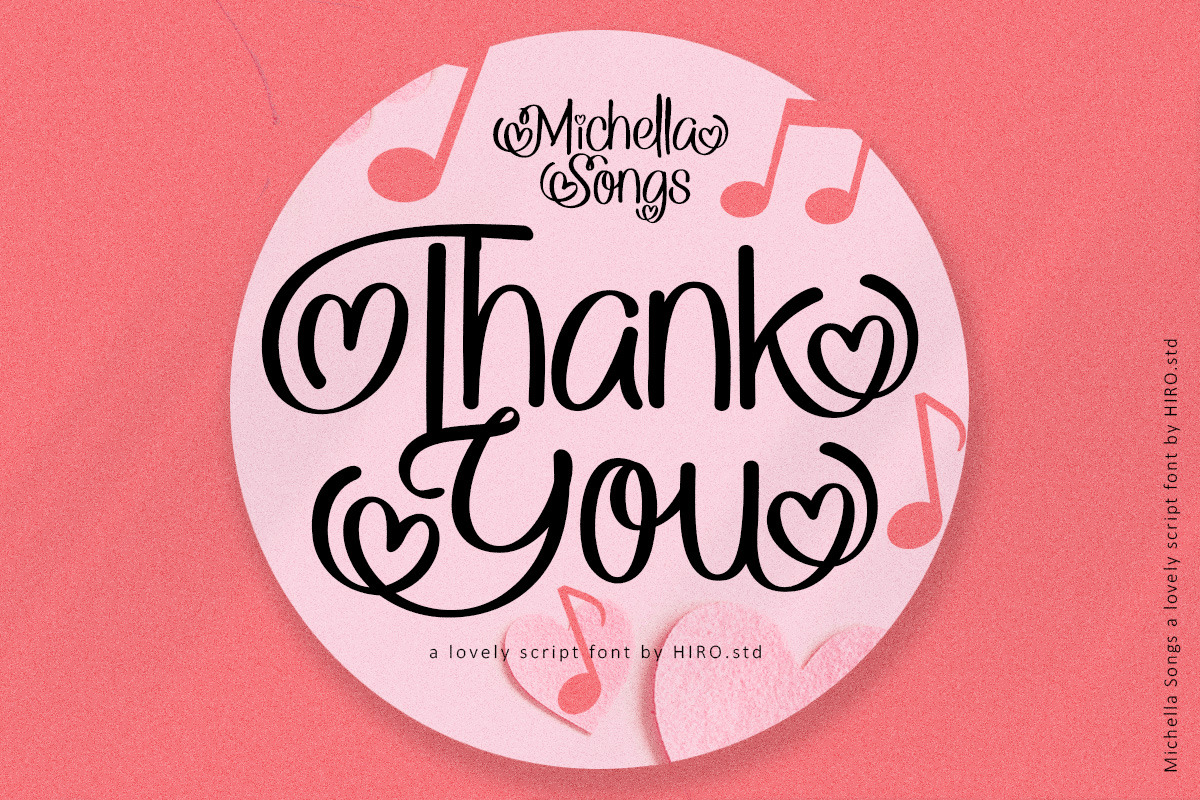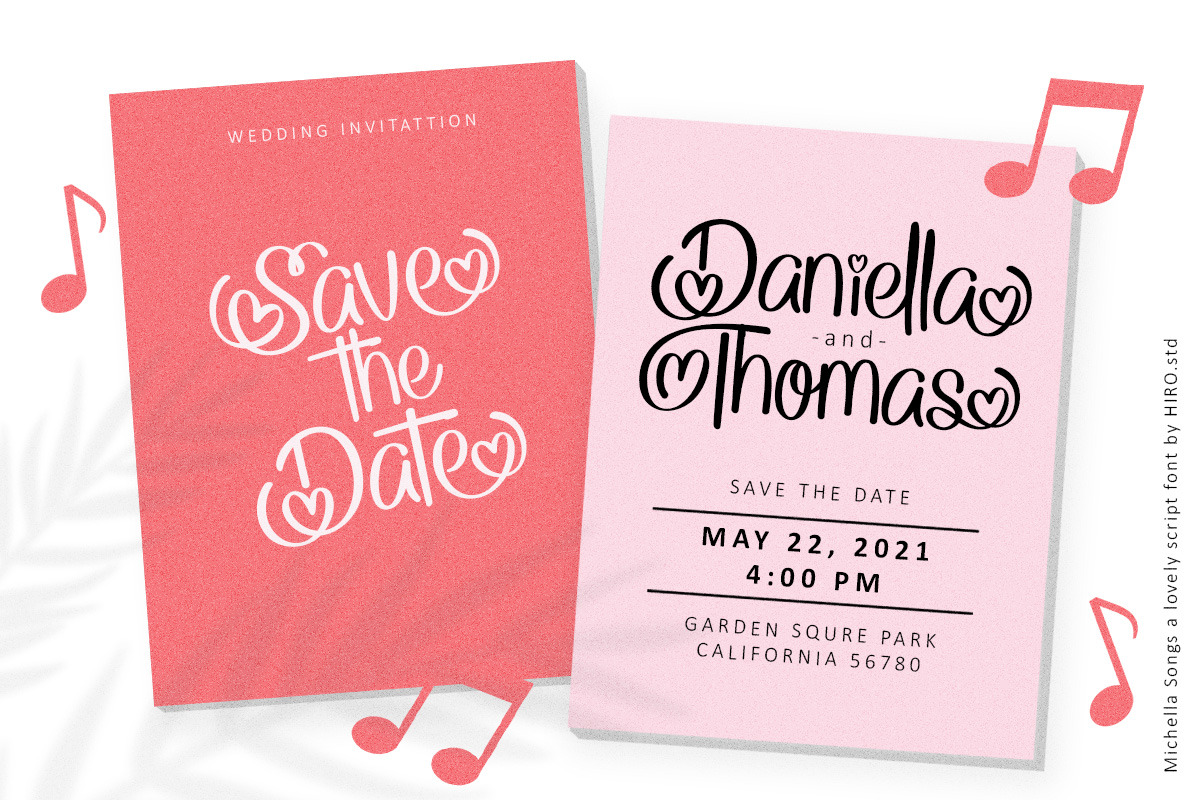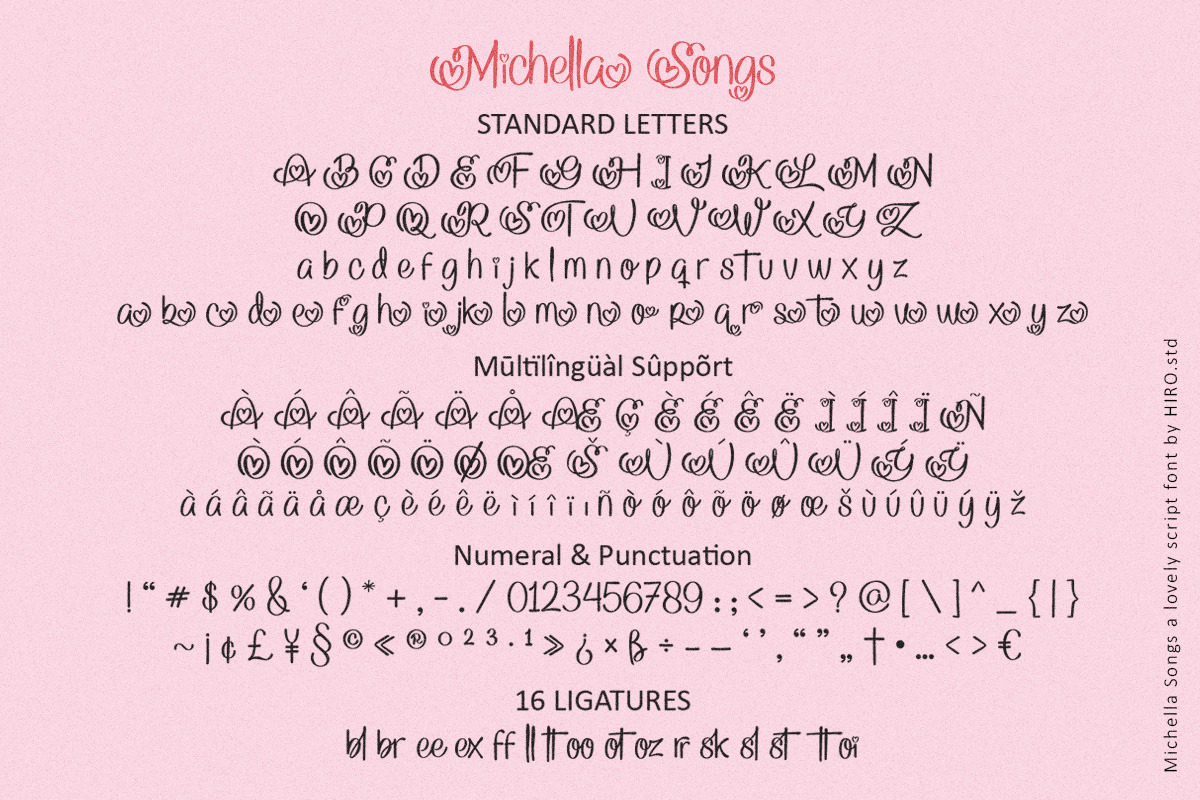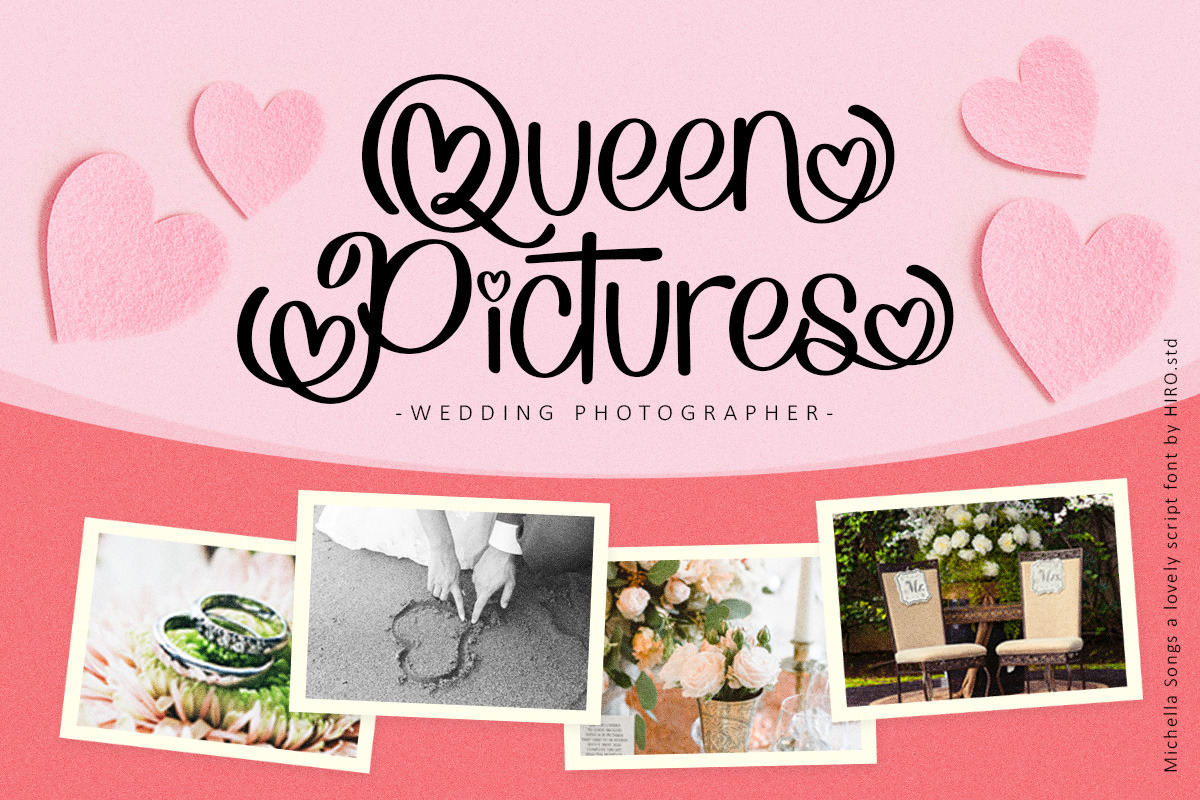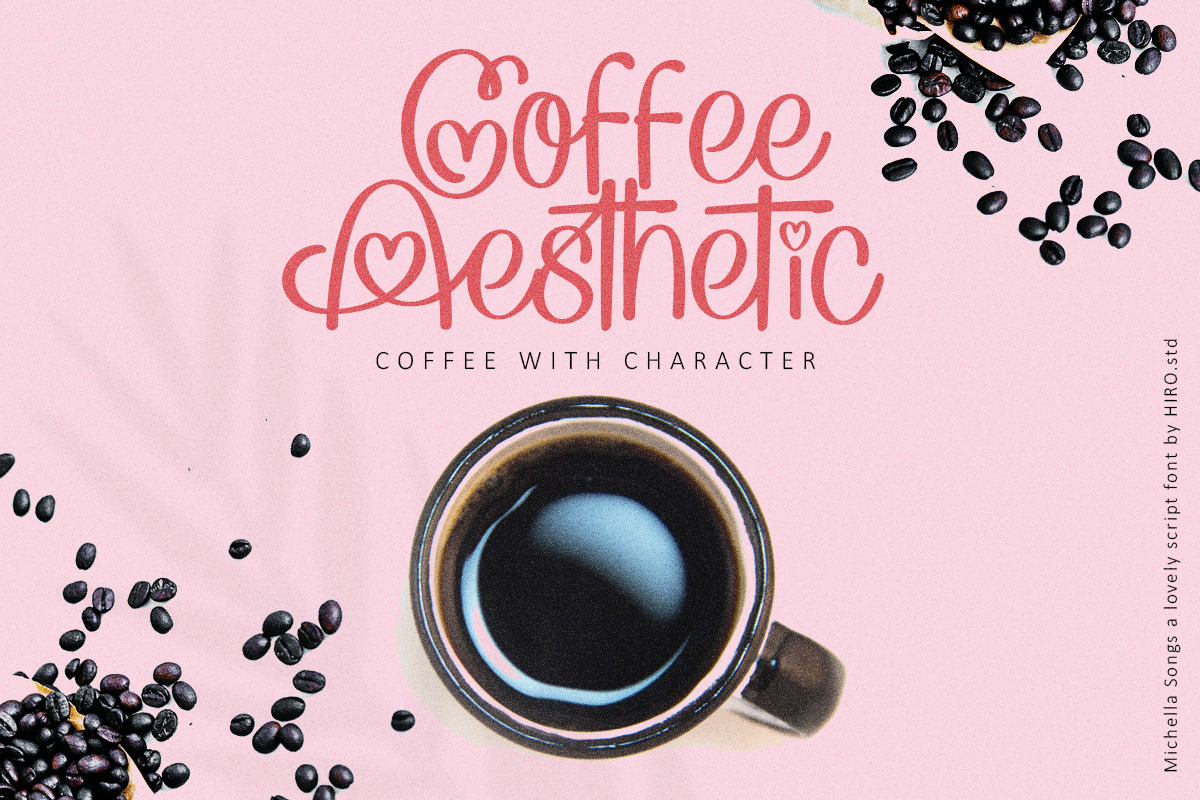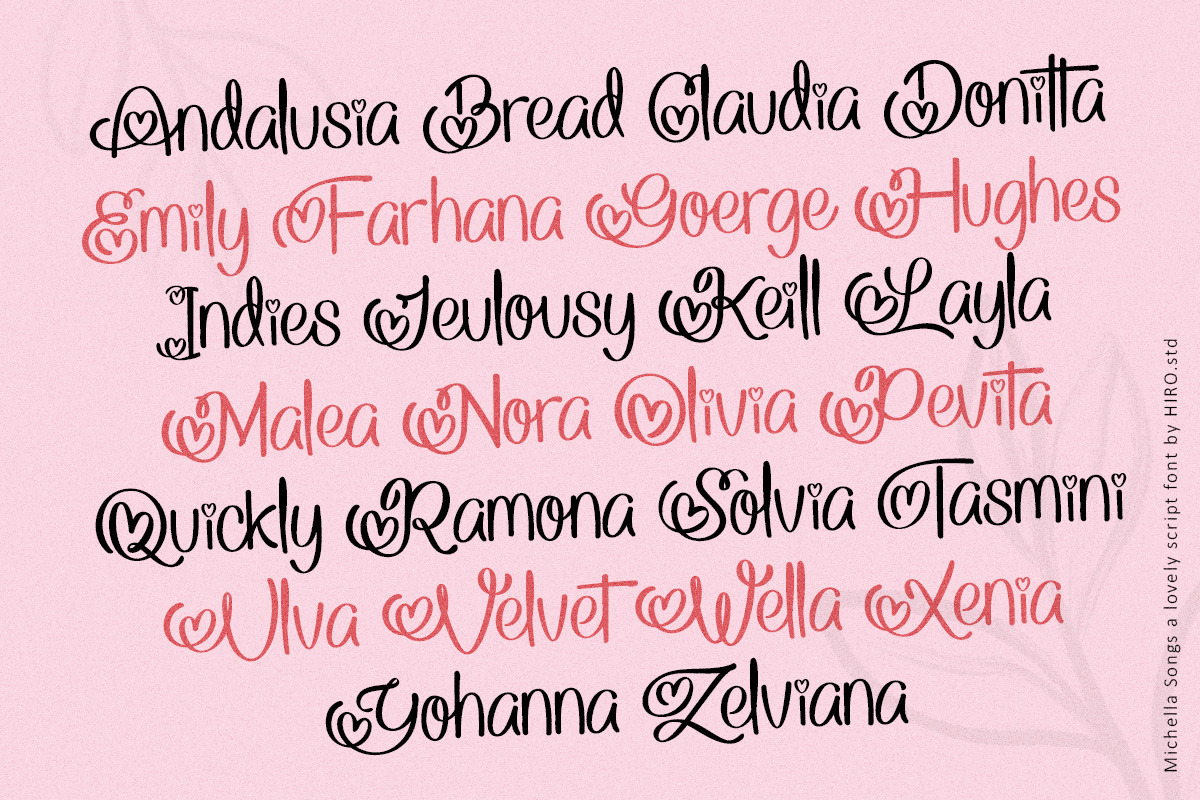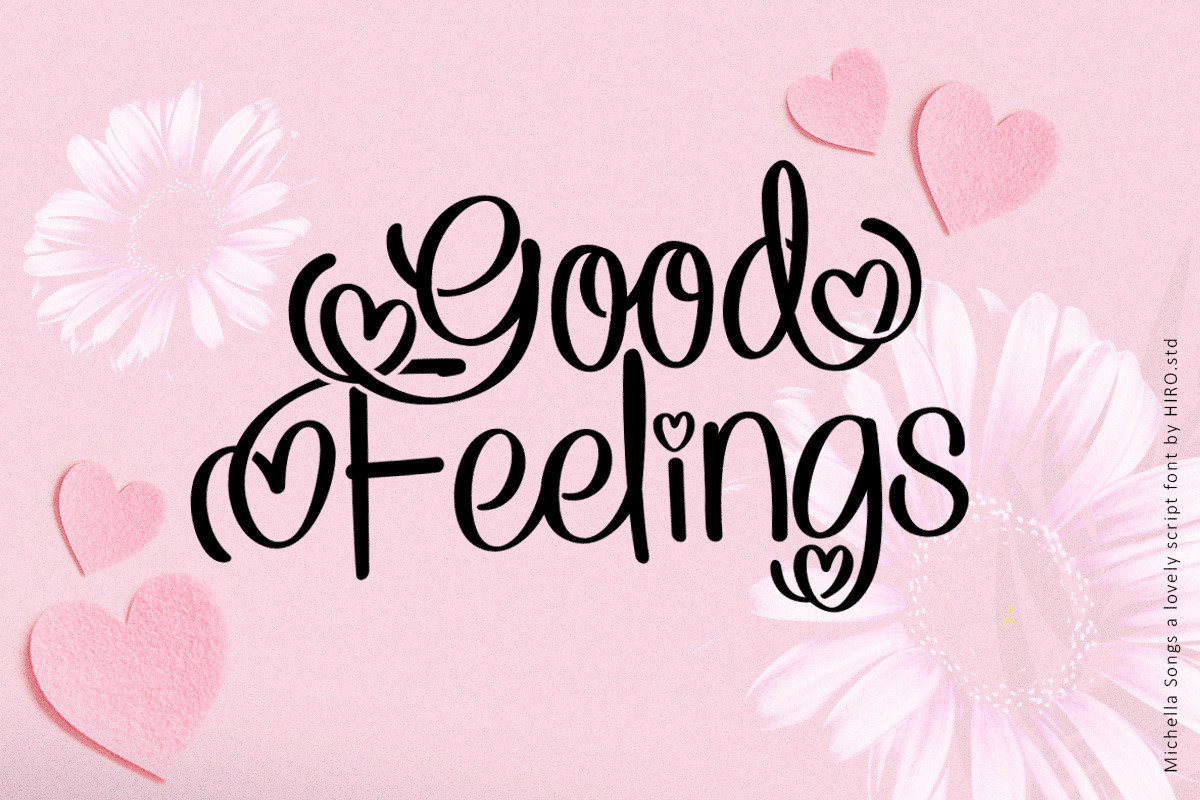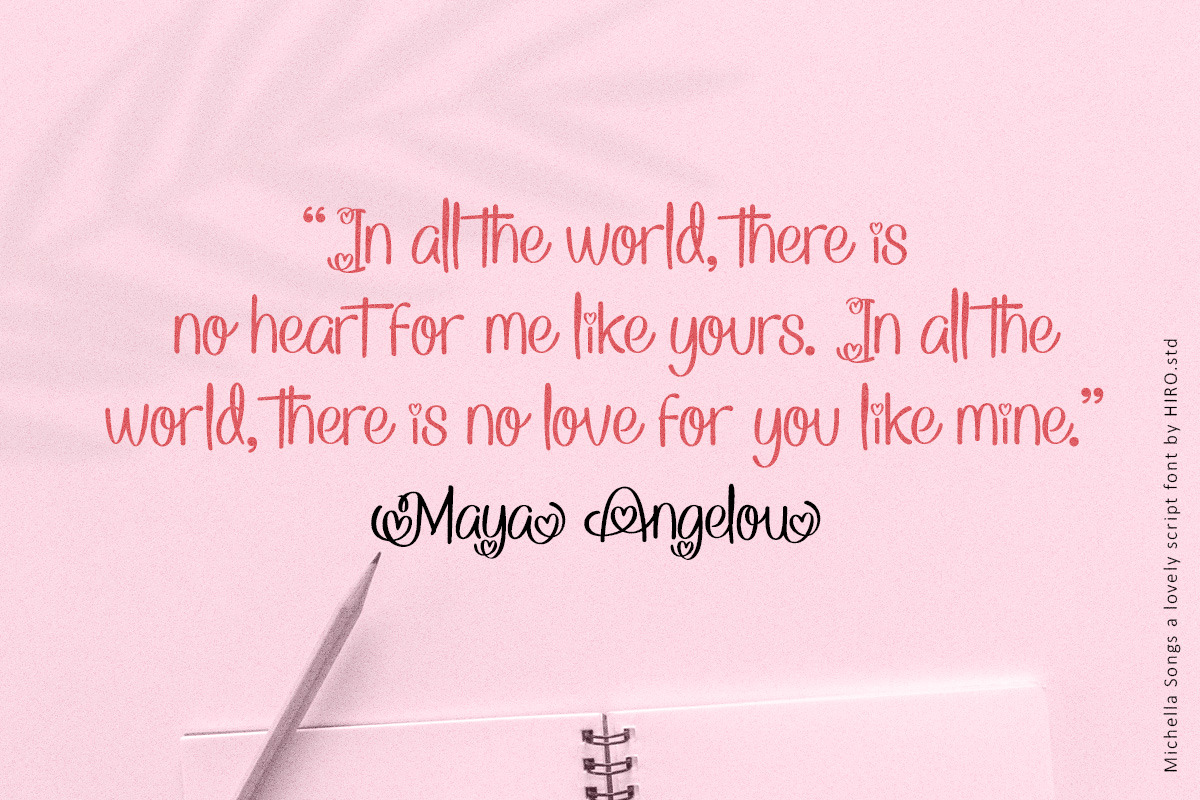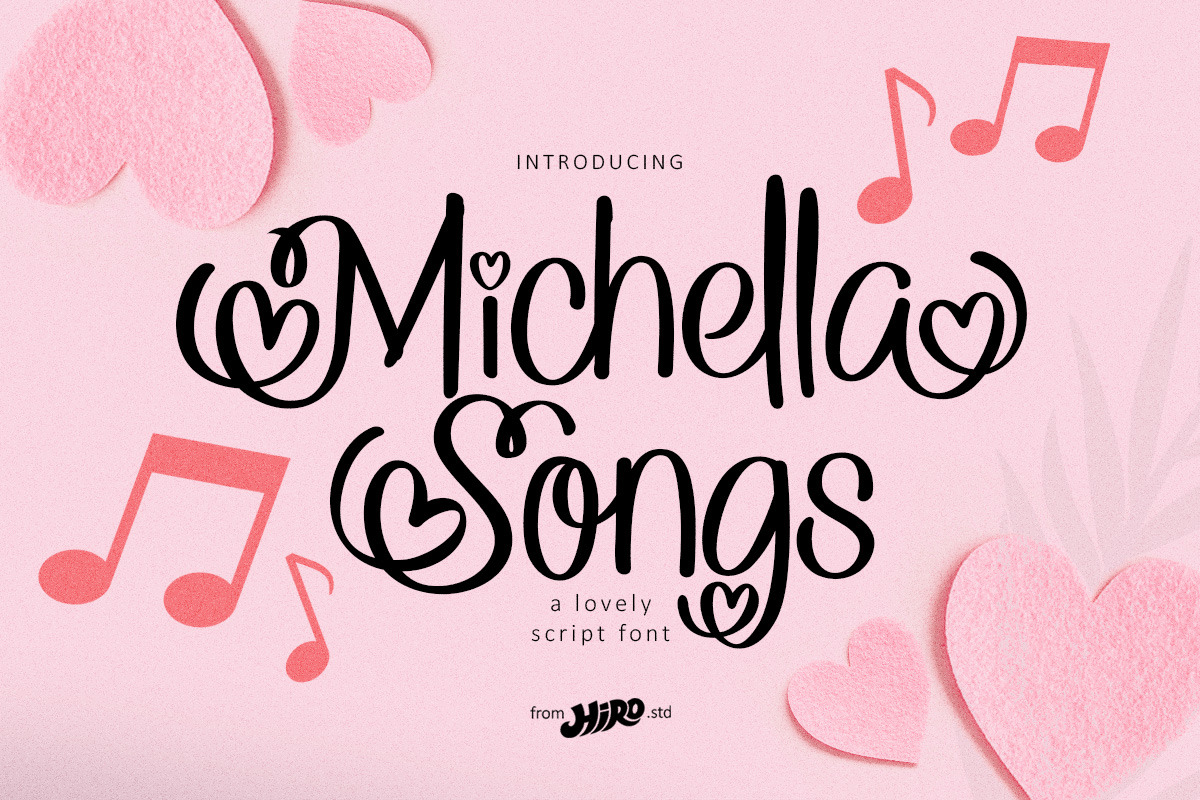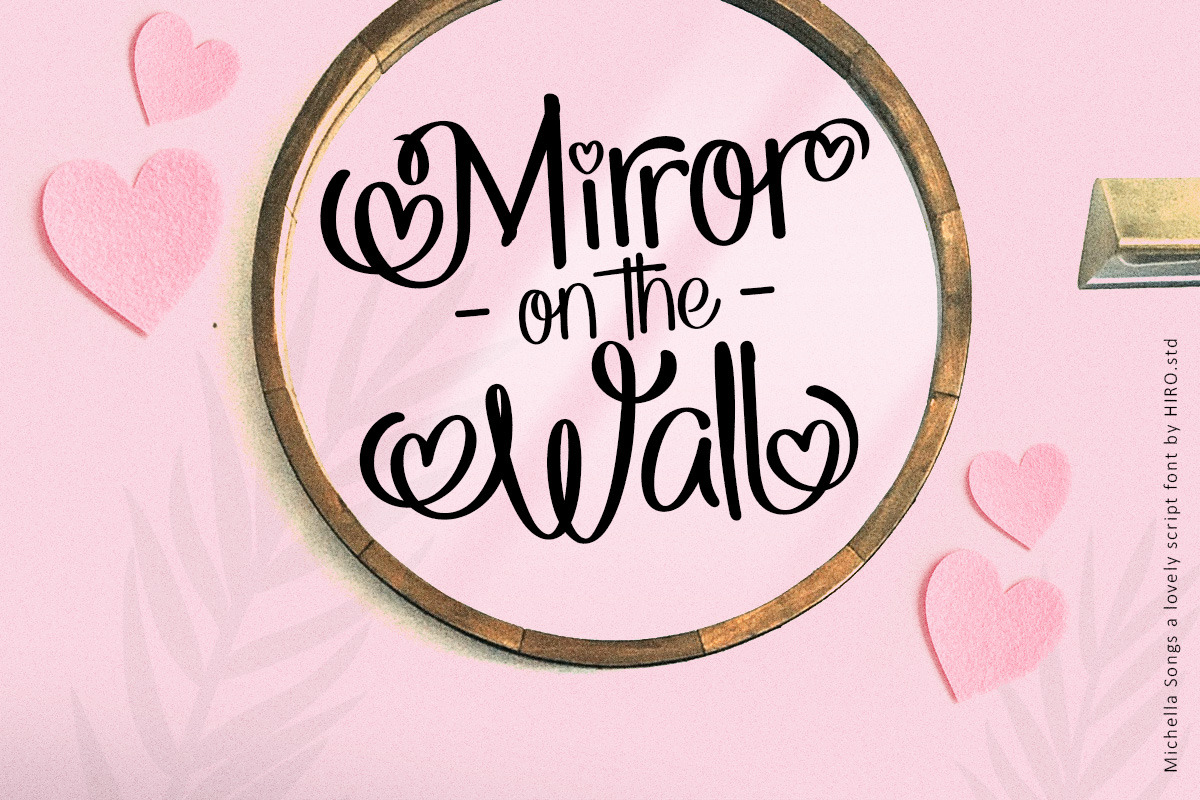
Michelle Songs - Script Font
Michella Songs is a lovely script font.
This font describes about semi casual, semi elegant, catchy, dynamic, fun, attractive, easy to use and will bring a good harmony when the letters are connected and paired each other.
- Support Opentype Features
- Support Ligatures
- Alternate ending swash
USE Michella Songs works great in any wedding invitations, craft, branding, logotype, quotes and any projects that need all about love script taste.